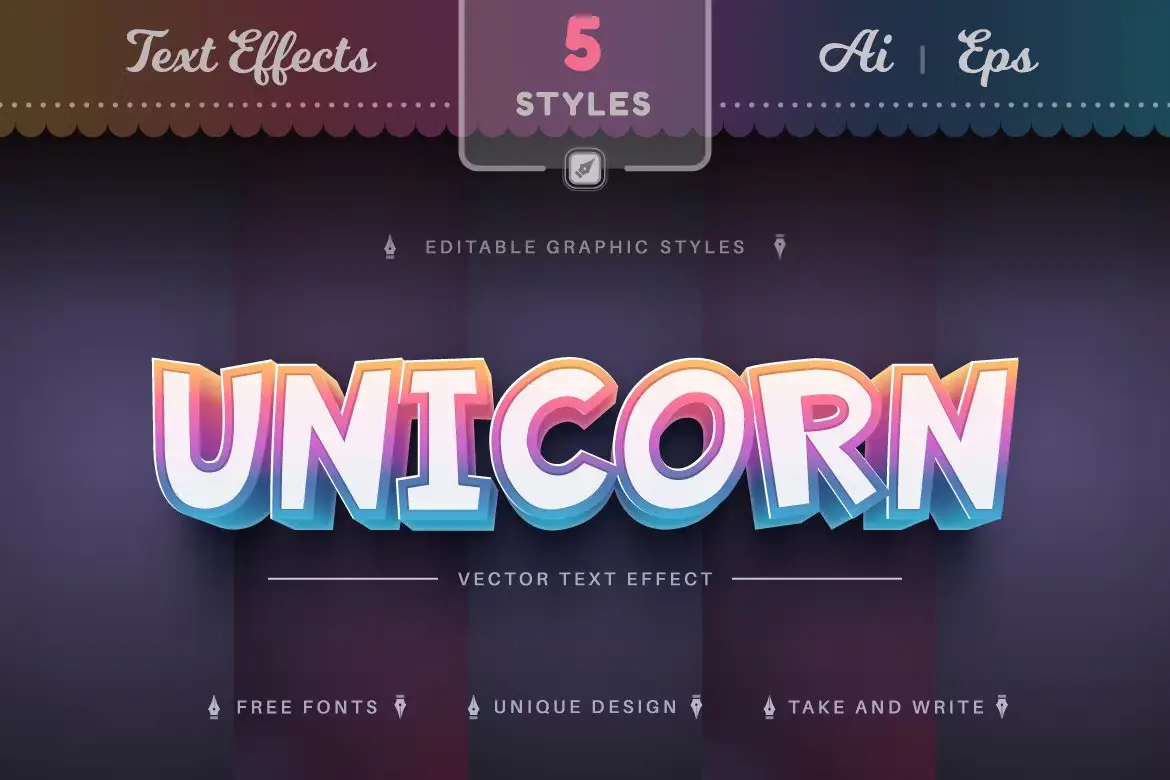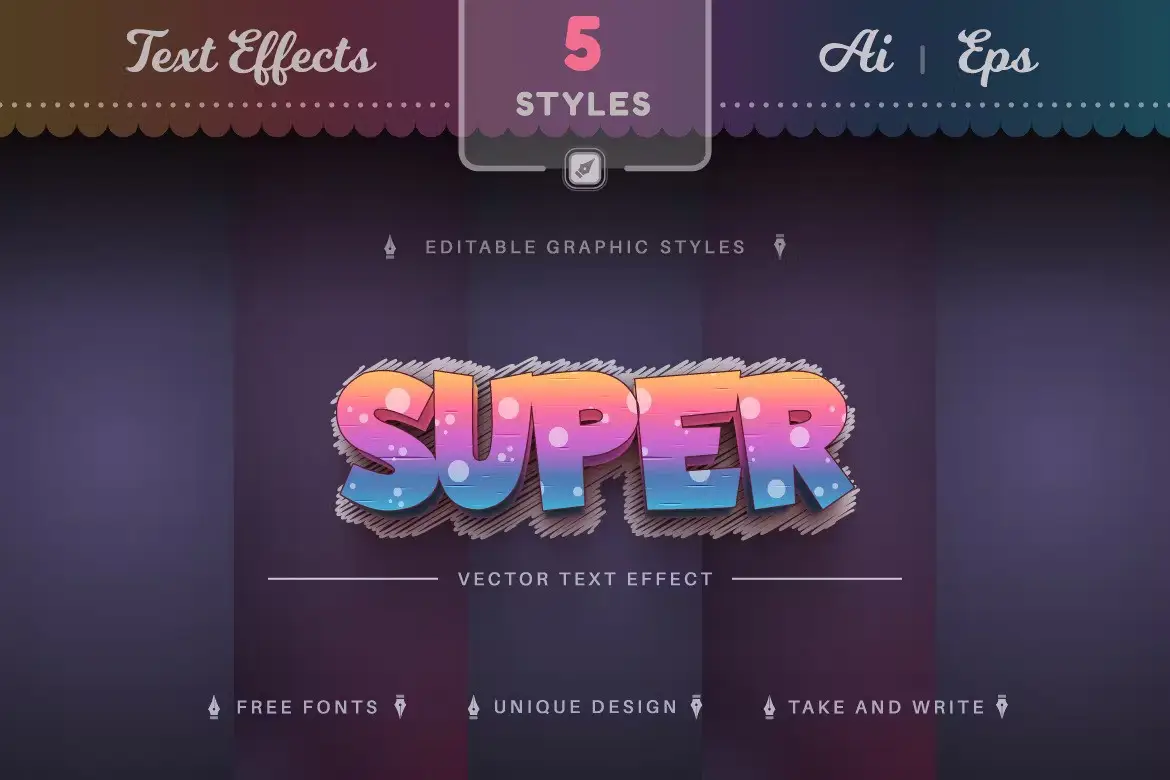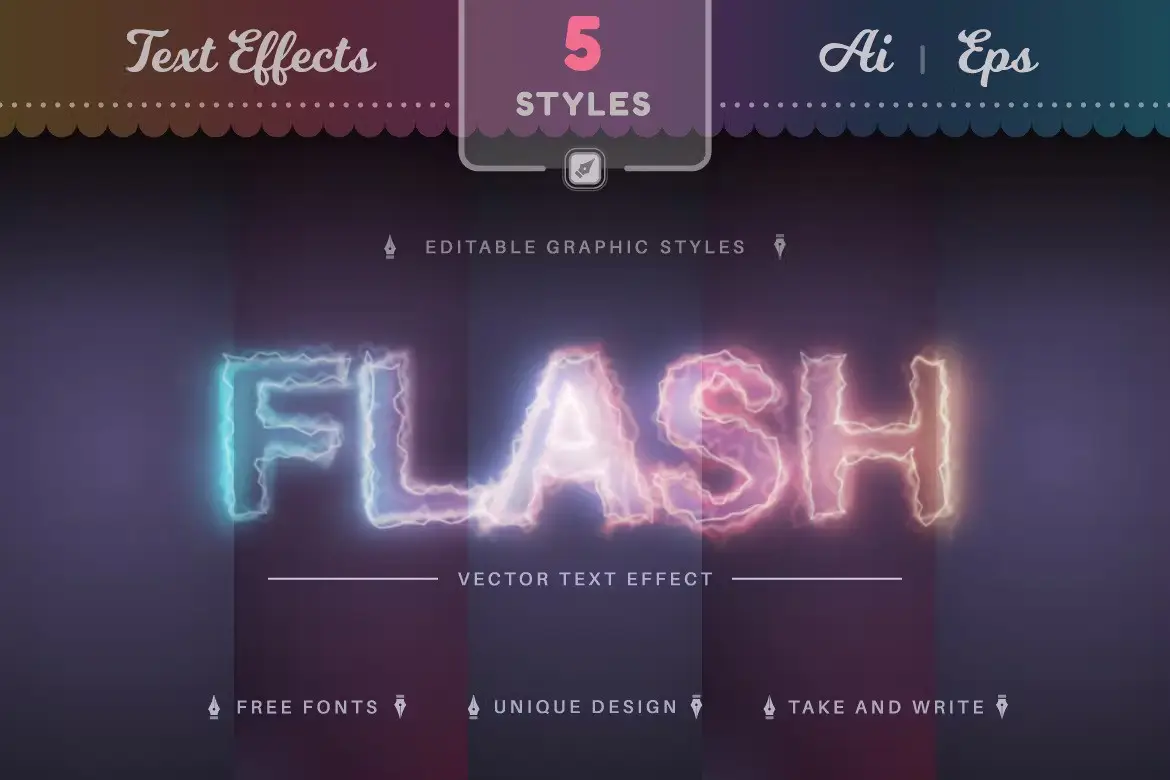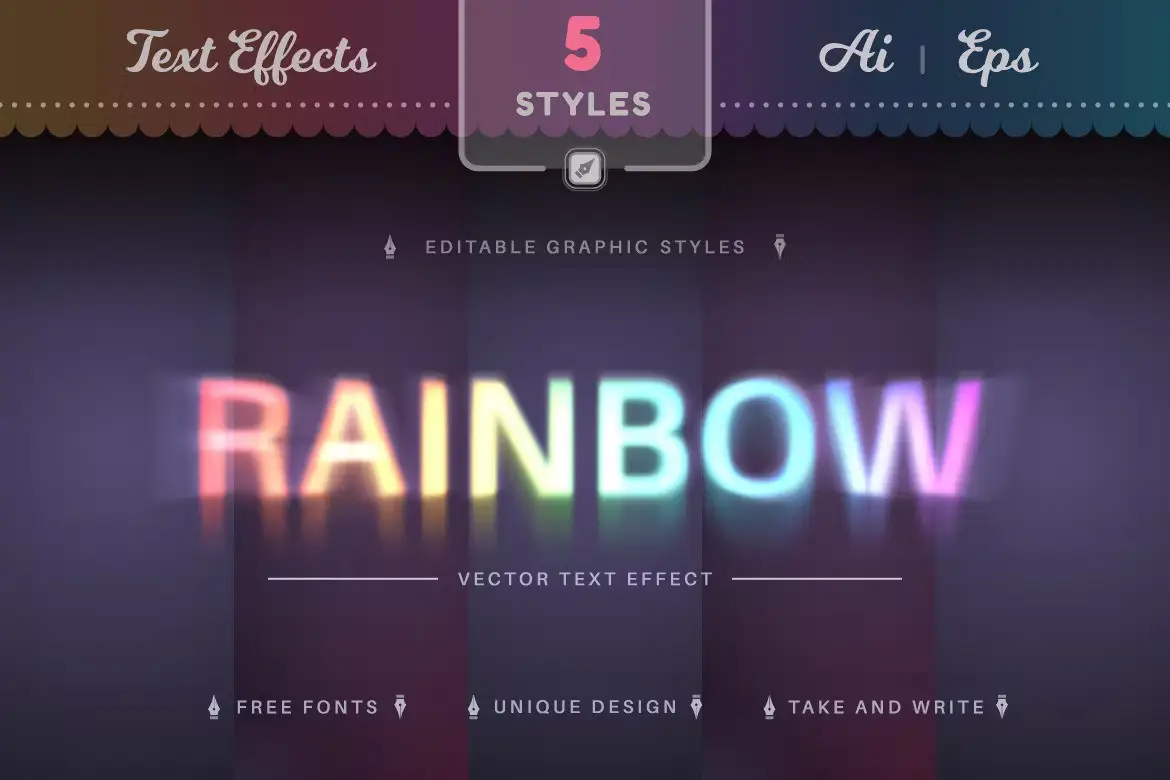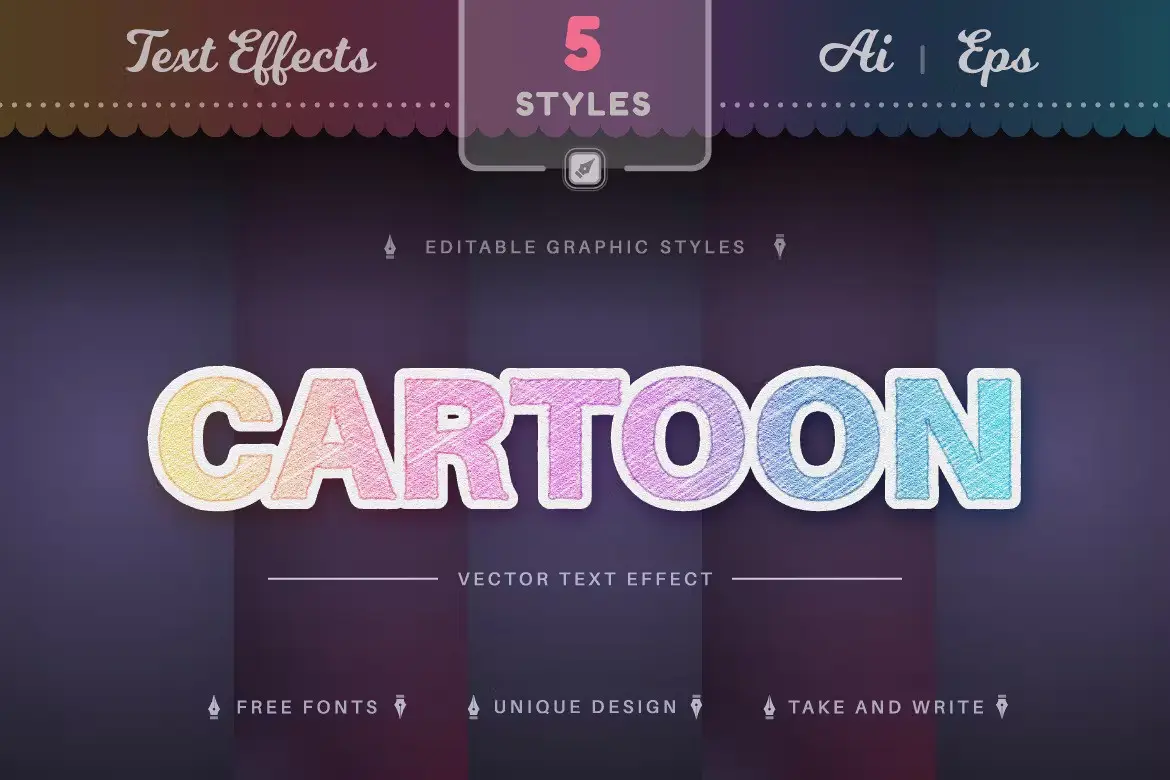
Set 5 Unicorn Editable Text Effects, Font Styles
Unleash your creativity with our Set 5 Unicorn Editable Text Effects. This unique collection allows you to transform any text into a magical masterpiece with just a few clicks. Perfect for projects that require a whimsical touch, these effects are designed to inspire your imagination and elevate your designs.
This set includes five stunning vector text effects that embody the enchanting essence of unicorns. Whether you’re designing for a fantasy-themed project, creating social media graphics, or crafting personalized invitations, these editable text styles will add a delightful flair to your work.
- ✅ Unique Styles → Each effect captures the whimsical charm of unicorns, making your text stand out.